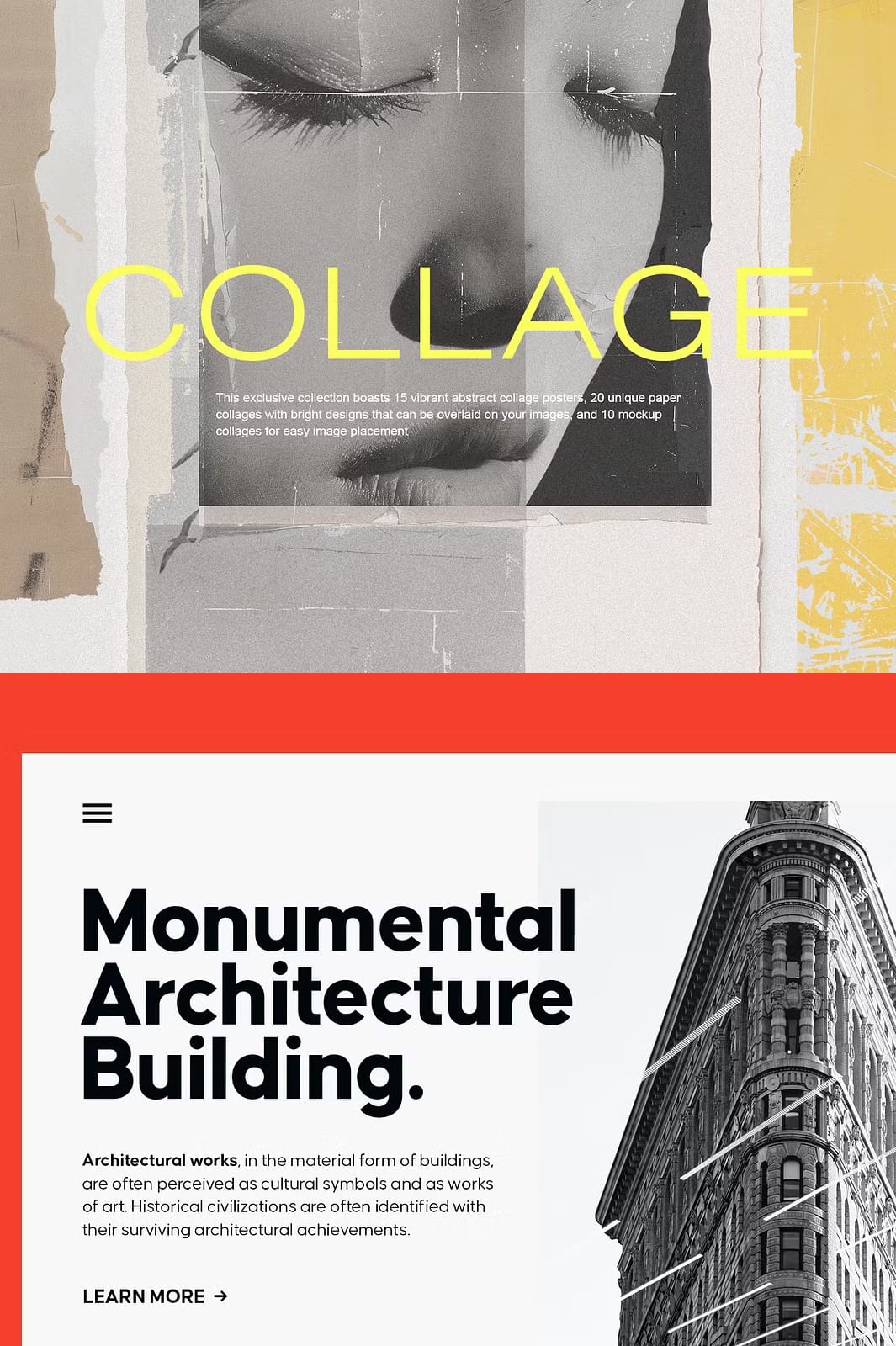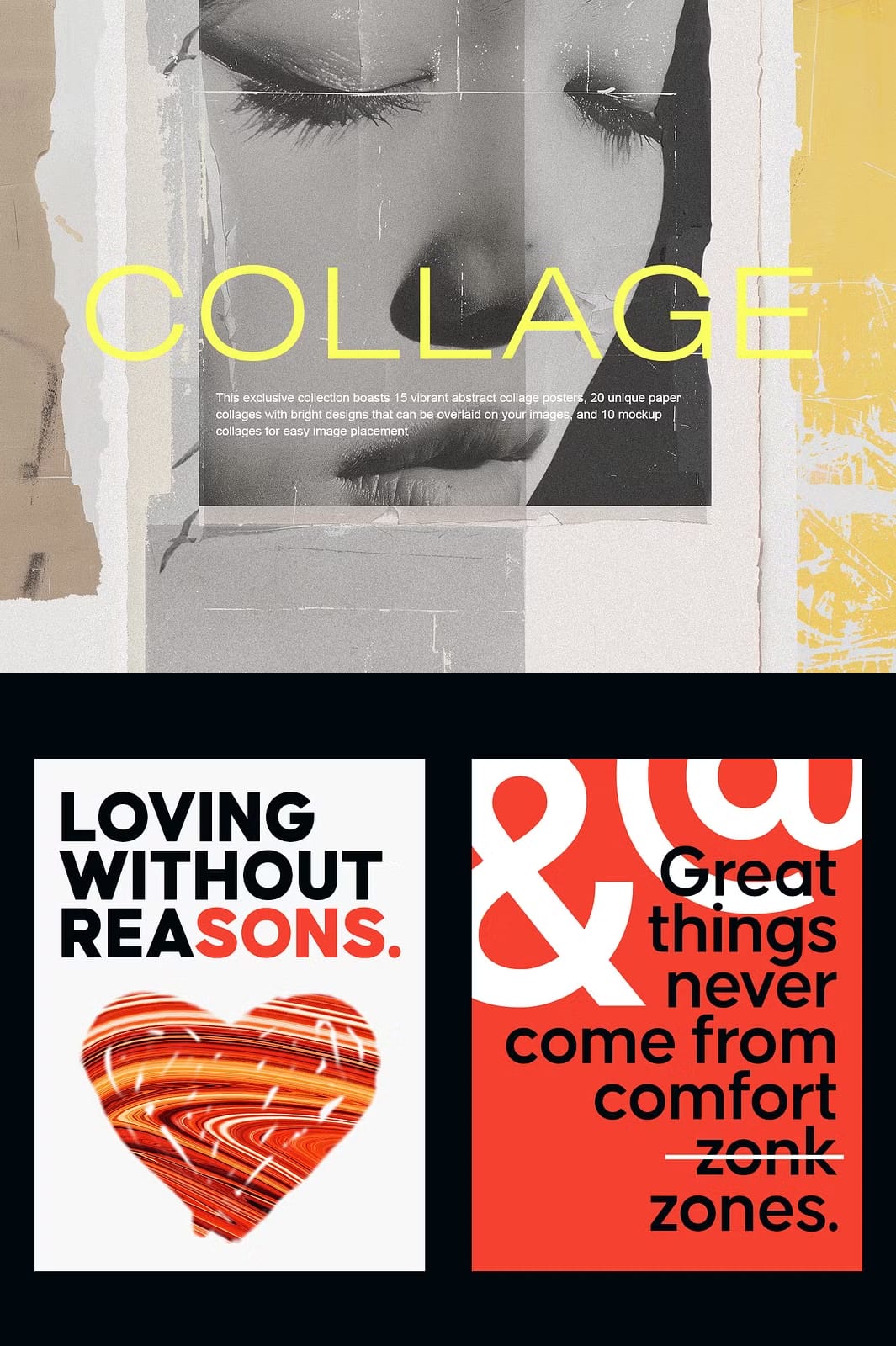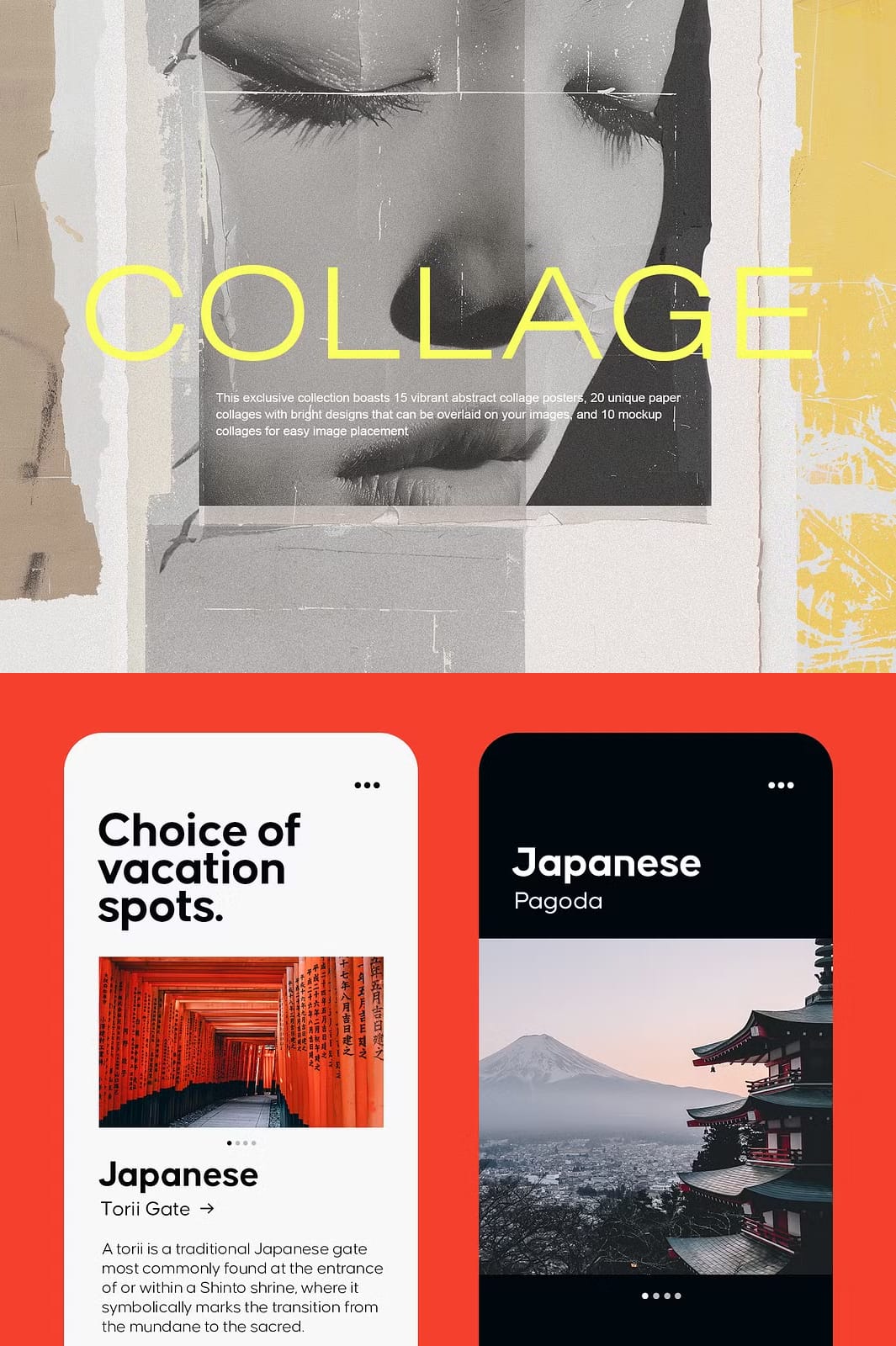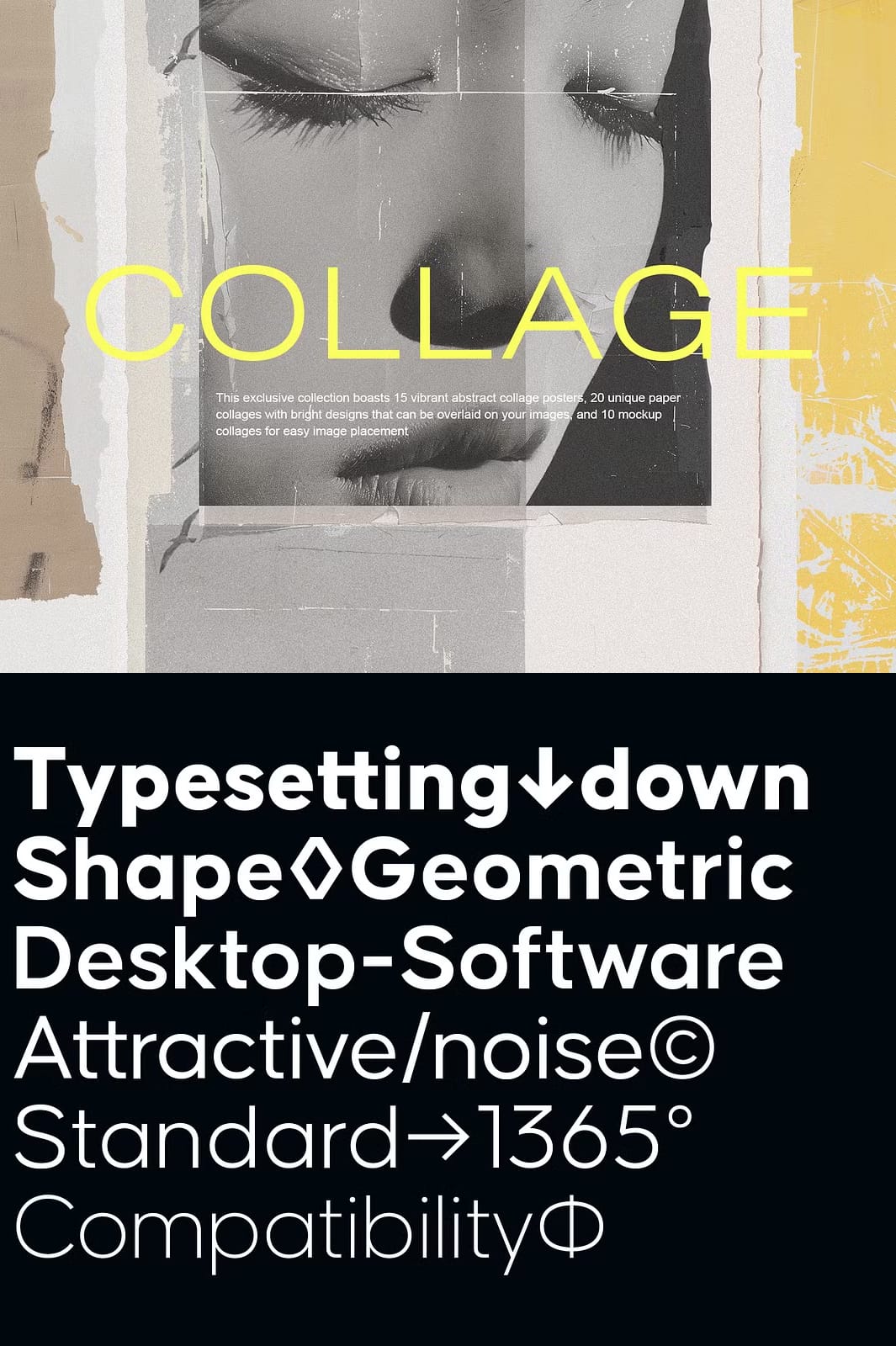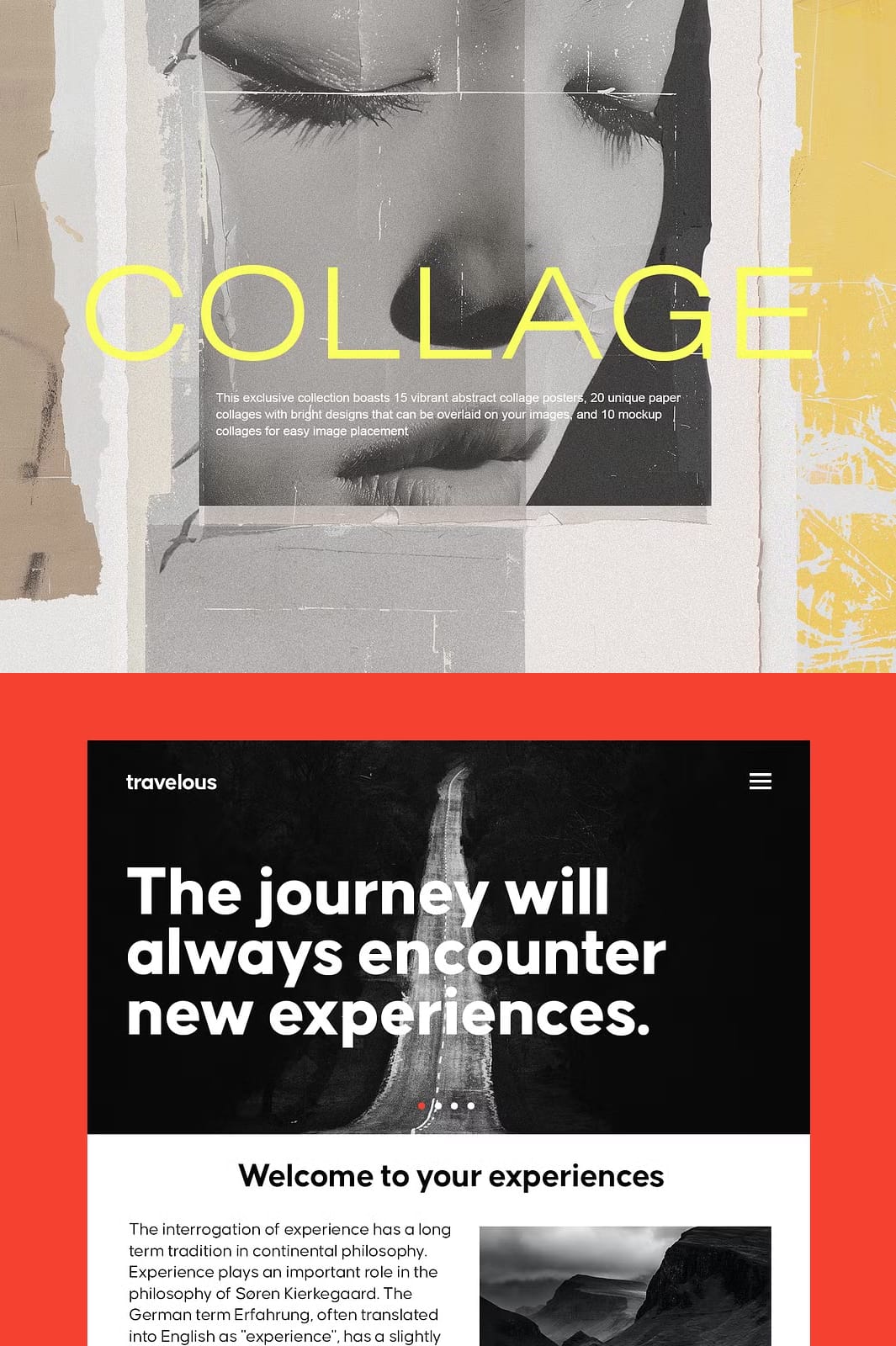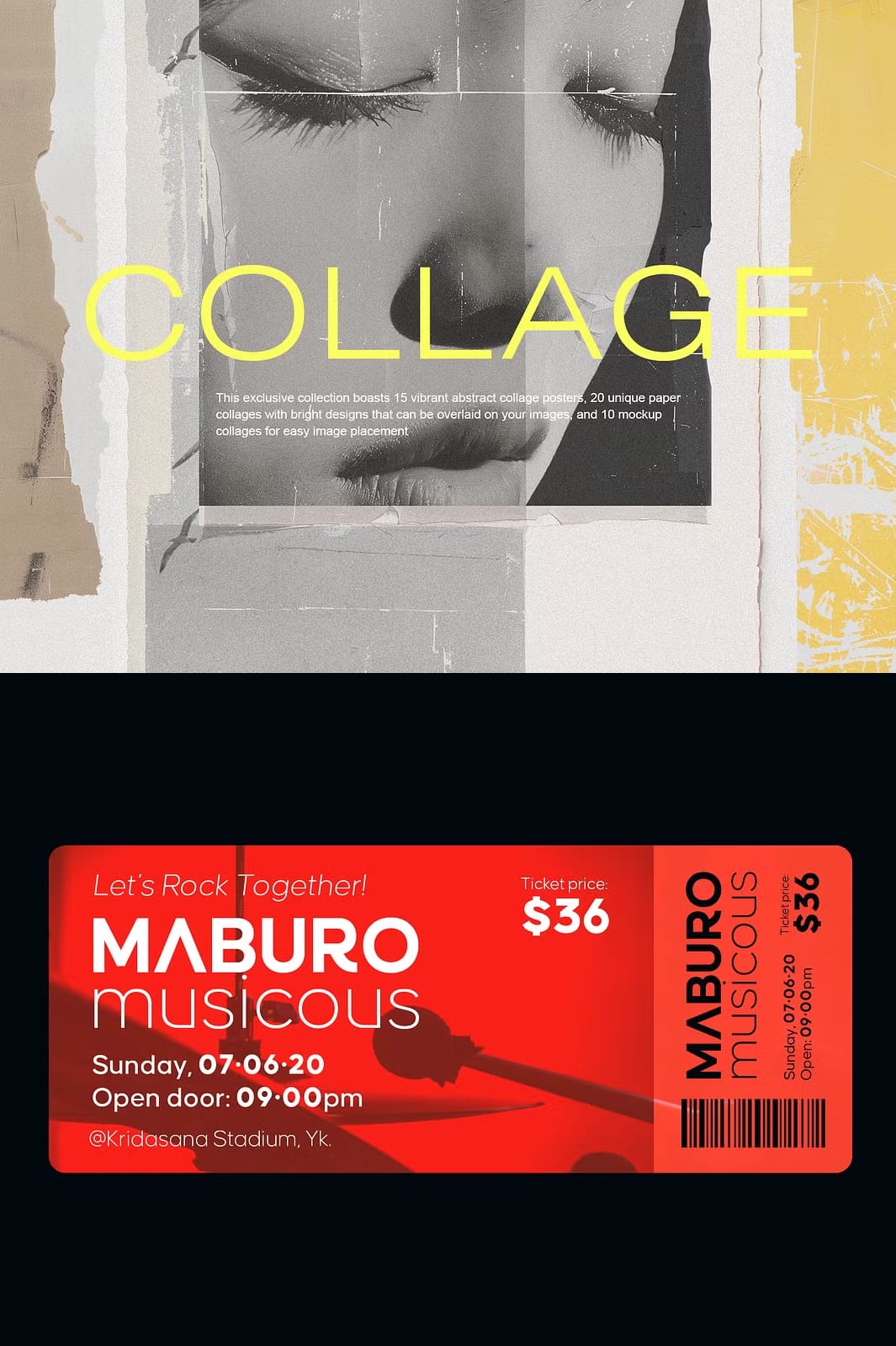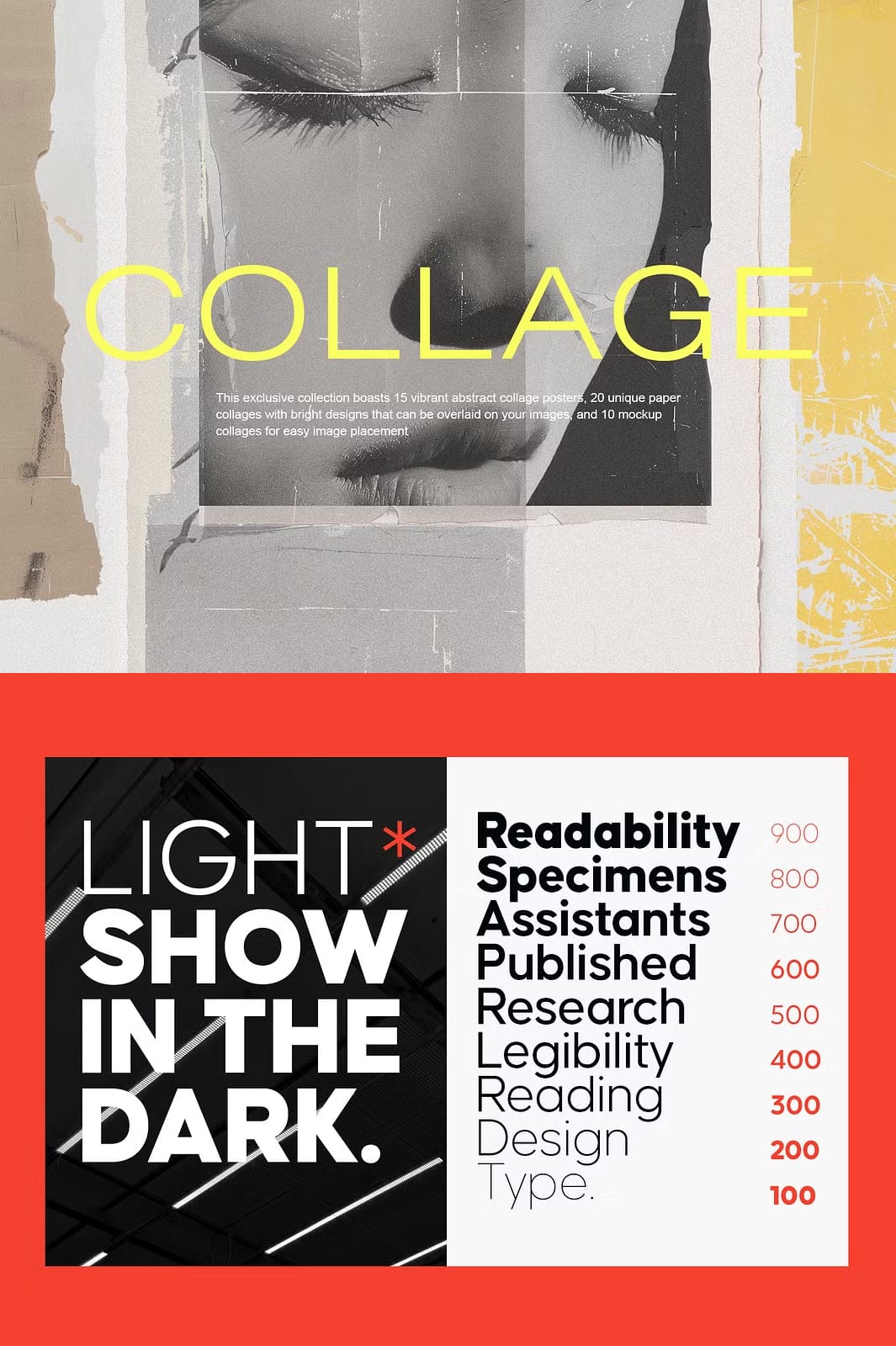
Causten Font Family
Experience The Perfect Balance Of Form And Function
Causten delivers a masterful blend of geometric precision and visual harmony in every character. This sans-serif font family maintains perfect rationality in its design, with each form carefully crafted to achieve optimal balance and clarity. The sharpness of its angles and the logic of its proportions create a clean, neat appearance that elevates any design project. Designers will appreciate how Causten combines mathematical precision with aesthetic appeal to produce typography that commands attention while remaining highly readable.
Eighteen Distinct Styles For Unlimited Creative Possibilities
The Causten font family offers an impressive range of 9 weights with matching oblique versions, totaling 18 distinct styles. This extensive selection provides designers with unparalleled flexibility to create sophisticated typographic hierarchies and visual contrast. Whether you need ultra-light elegance or bold impact, Causten delivers consistent quality across all weights. The matching oblique versions maintain the font’s geometric integrity while adding dynamic movement to your layouts.
Enhance Your Designs With Professional Typographic Features
Causten goes beyond basic character sets to offer advanced typographic features that professional designers demand. The font includes comprehensive uppercase and lowercase letters, punctuation, symbols, and a rich selection of stylistic alternates. Ligatures ensure smooth character combinations, while the multilingual support covers Western European languages. These features make Causten equally suitable for branding, editorial design, web interfaces, and print materials.
Perfect For Contemporary Branding And Digital Interfaces
Modern brands seeking clean, professional typography will find Causten an ideal choice. Its geometric forms convey stability and precision, while the range of weights allows for subtle or dramatic contrast in logo designs and brand systems. Digital designers will appreciate how Causten’s clarity and readability perform exceptionally well on screens of all sizes, from mobile interfaces to desktop displays. The font’s versatility makes it a valuable asset for any design toolkit.
Technical Excellence Meets Creative Flexibility
Every character in the Causten font family demonstrates meticulous attention to detail. The font’s construction follows strict geometric principles while incorporating subtle optical corrections that enhance readability. Alternative glyphs provide creative options for customizing your typography, allowing designers to fine-tune the appearance of their text. These thoughtful details make Causten stand out among geometric sans-serif fonts.
Global Readiness With Multilingual Character Support
Causten’s comprehensive character set supports multiple languages, making it suitable for international projects. The font includes all necessary diacritical marks and special characters for Western European languages, ensuring proper rendering of text in various linguistic contexts. This global readiness makes Causten a smart choice for brands and designers working with diverse audiences.
Why Choose Causten For Your Next Project?
Causten combines the timeless appeal of geometric sans-serif typography with modern functionality. Its extensive weight range, advanced typographic features, and multilingual support make it one of the most versatile font families available. Whether you’re designing a corporate identity, a website, or printed materials, Causten provides the professional quality and creative flexibility you need.